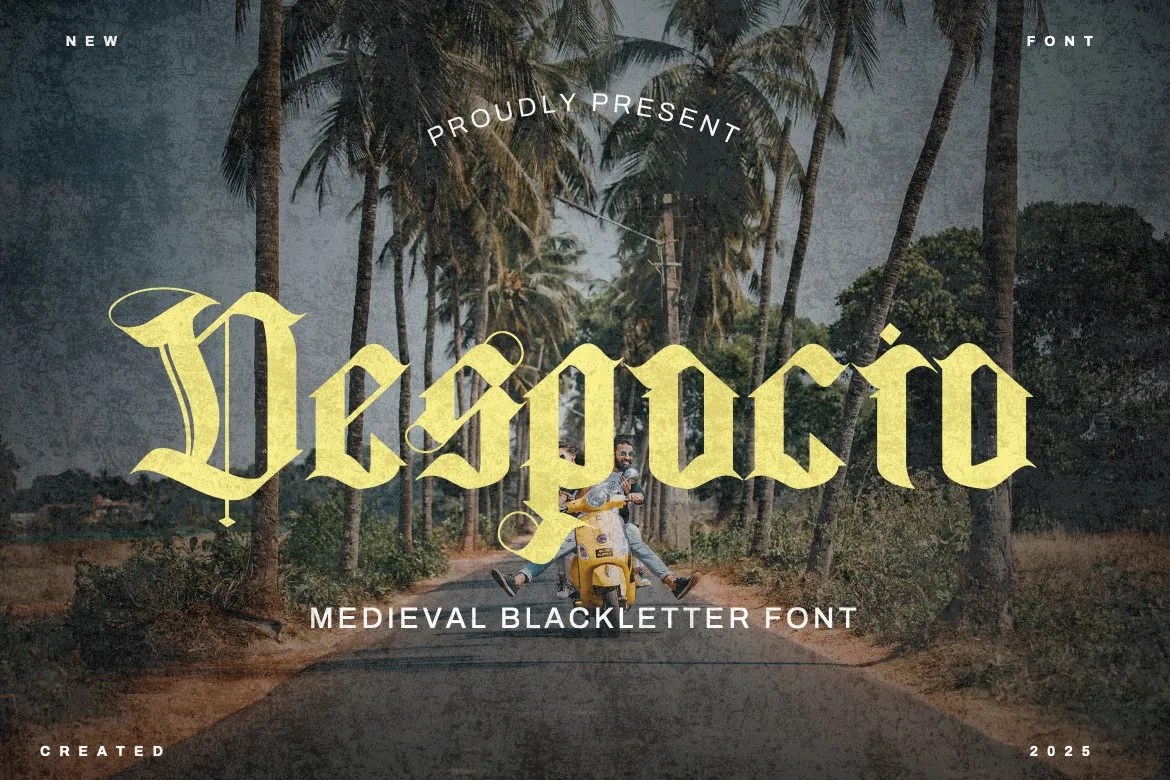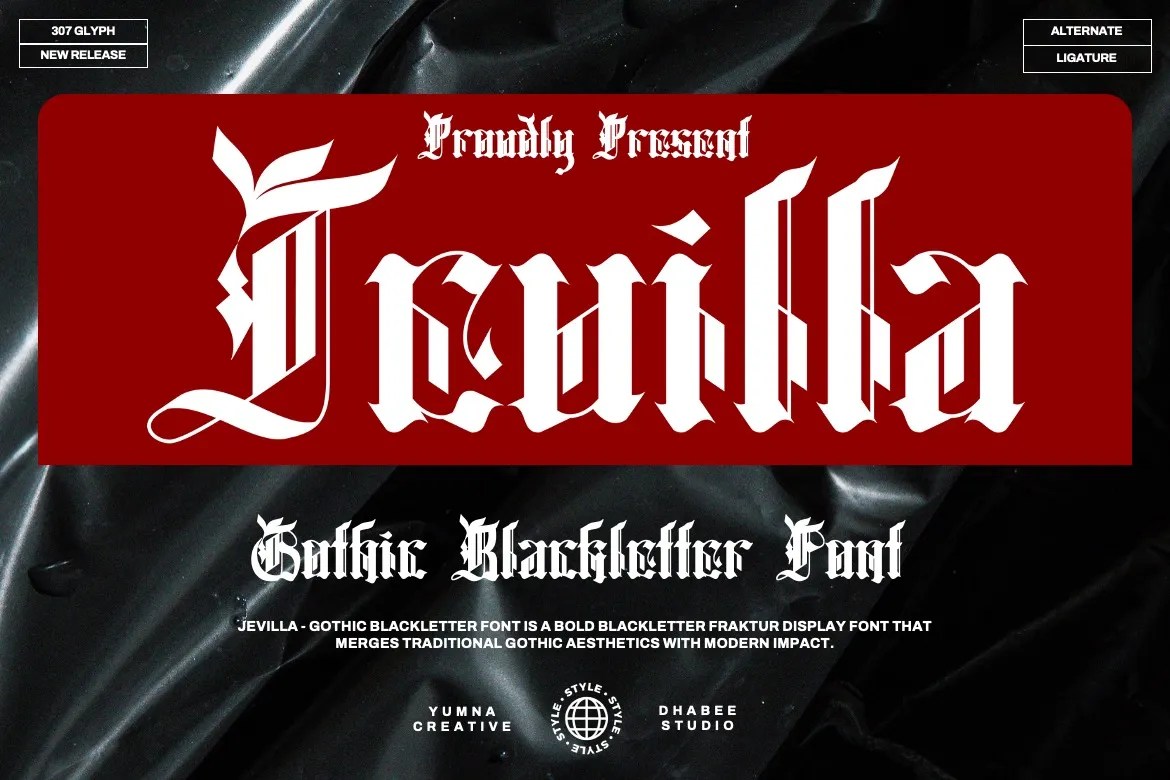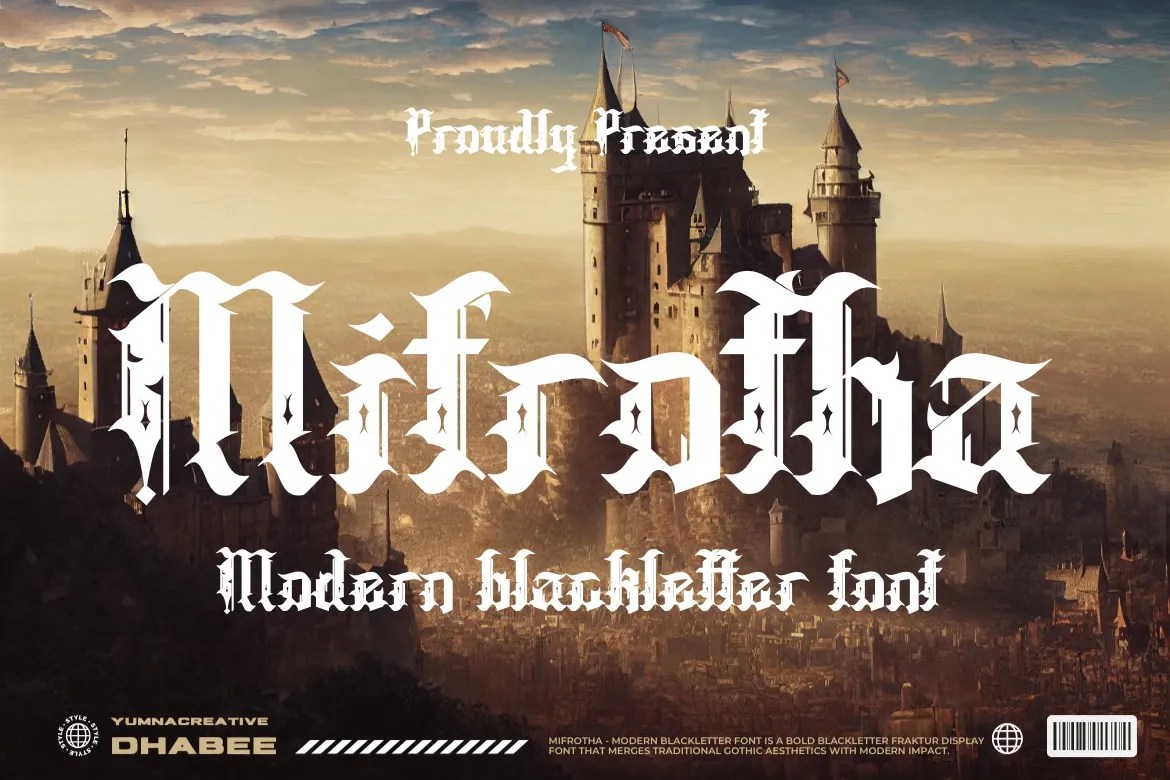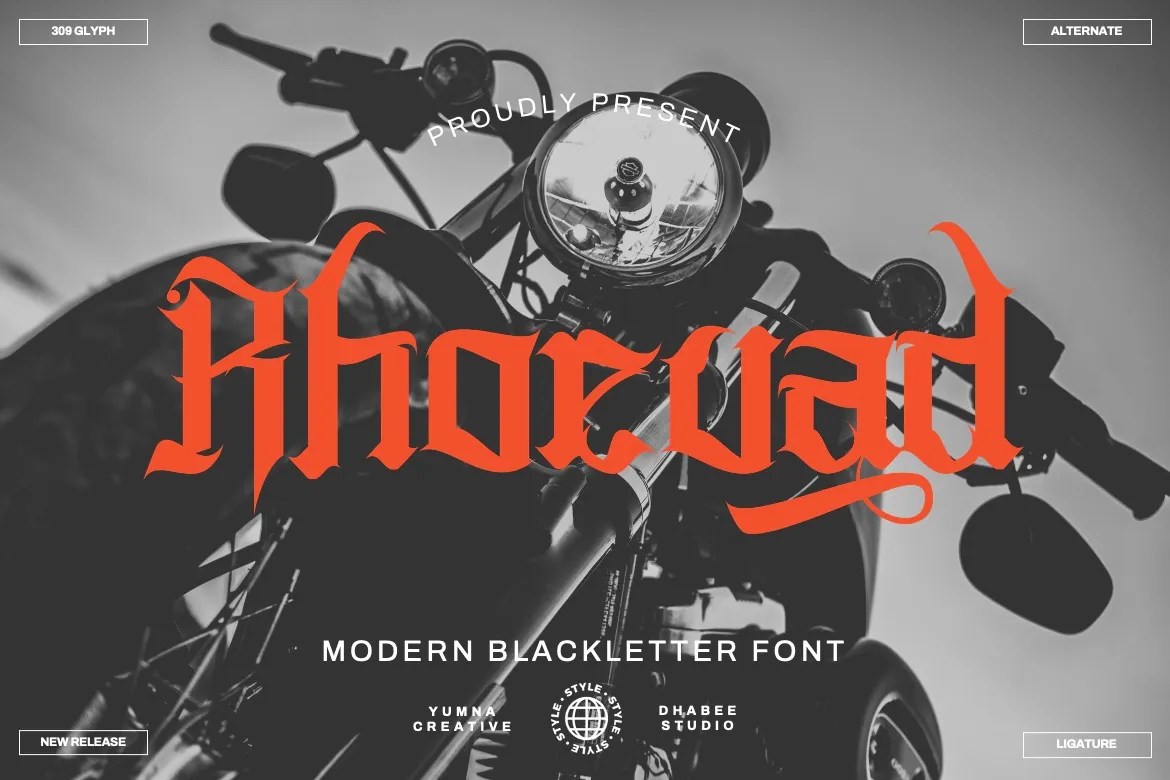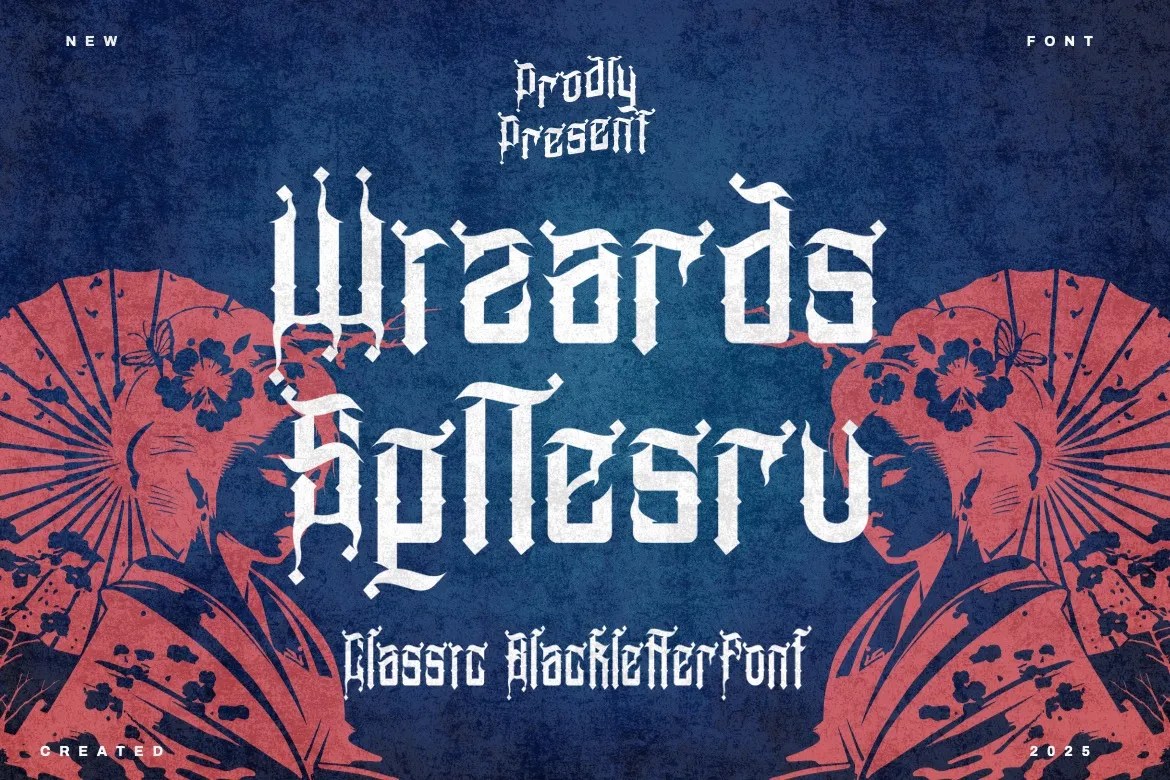
If you’re looking to create a brutal and eye-catching design, choosing the best death metal fonts is essential. These fonts capture the raw aggression and chaotic energy that define the genre, making your band logo, poster, or merch impossible to ignore.
With countless choices available, how can you discover the ideal one? Keep reading as we unveil the top picks that will make your artwork as fierce as the music itself!
In the following list, we’ve compiled the 30 best fonts for engraving metal that will give your designs a brutal and hardcore look for any usage. Explore them!
With jagged, uneven strokes, Taebisco looks like it was carved by an ancient, cursed blade. Perfect for eerie band logos and haunting album covers.
Blood-dripping edges and chaotic curves make Spyceblood ideal for black metal posters. It screams mystery, darkness, and unholy rituals.
Sharp and gothic, Deathlies font brings an old-school metal vibe with a modern twist. It’s best suited for brutal album artwork and aggressive band branding.
Inspired by medieval scripts, Horizone blends history with horror. Use it for black metal album titles that demand an ancient, mystical aura.
Dark, distorted, and chaotic, Kroger embodies the spirit of doom metal. It works best for band logos dripping with raw emotion and intensity.
Rough and aggressive, Naxrsoul Cather mimics brush strokes on a dungeon wall. A must-have for grim black metal flyers and merch.
A disturbing mix of twisted lettering, Clownie Zombies is perfect for horror-infused metal projects. Ideal for extreme underground festival posters.
Dripping with sinister energy, Slytheris is bold and eerie. Think haunted castles, shadowy forests, and corpse-painted musicians.
If hell had a signature typeface, Winsideuz would be it. It oozes gothic terror, making it a go-to for extreme metal designs.
With its razor-sharp lines and aggressive cuts, Knights Slayer is built for battle-ready metal bands looking for an iconic logo.
Like letters clawed into a tombstone, Night Fears stands as one of the best death metal fonts that gives off pure horror vibes for black metal projects.
Distorted and chaotic, Tacurse looks like it’s been summoned from the depths of despair. Perfect for album art that screams torment.
Designed with black metal in mind, Kreustan features twisted, spiky strokes that embody the essence of the genre’s brutal aesthetics.
Uneven and ghostly, Fearost brings an unsettling atmosphere to any design. A nightmare-fueled choice for metal band branding.
Rough, jagged, and chaotic, Berscare delivers a gritty, underground feel. Ideal for extreme album covers or promotional material.
Looking like something scribbled in blood, Brainseater is pure horror. Use it for terrifying gig posters or limited-edition merch.
Blending medieval elegance with gothic darkness, Lancielot suits symphonic black metal bands with an orchestral edge.
A classic take on blackletter, Hansgrate feels like a lost scripture from a forbidden cult. Perfect for ritualistic metal themes.
Mystical and powerful, Curseyt looks like it belongs in an ancient spellbook. A top pick for black metal aesthetics.
Sleek yet dark, Lactoms adds a contemporary touch to gothic typography. Works well for band merch and lyric sheets.
A refined but eerie blackletter font, Chroines embodies mystery and old-world darkness. A great choice for cryptic album covers.
Sharp and structured, Nokrusa gives off an ominous vibe. It’s the font equivalent of an ancient cathedral lost in time.
A fusion of classic and modern gothic, Roffes Brawry is both sophisticated and sinister. Perfect for logos that need impact.
As one of the best death metal fonts, Elaxors is dark, mysterious, and authoritative, and it feels like something straight out of a grimoire. Great for occult metal bands.
A bold display font with medieval charm, Griffends suits black metal bands that embrace historical or fantasy themes.
With its thick, striking strokes, Hellshunx demands attention as the best font for metal signs. It’s perfect for extreme band logos with a gothic twist.
Modern but steeped in darkness, Marosdiac balances elegance with aggression. A versatile choice for various black metal visuals.
A fusion of medieval and modern gothic, Swords Clover has a regal but sinister presence. Ideal for epic black metal branding.
With an old-world charm, Knighstone fits perfectly for metal bands inspired by history, mythology, or medieval warfare.
A bold, aggressive blackletter font, Agathes is made for those who want their designs to look powerful, mystical, and unforgettable.